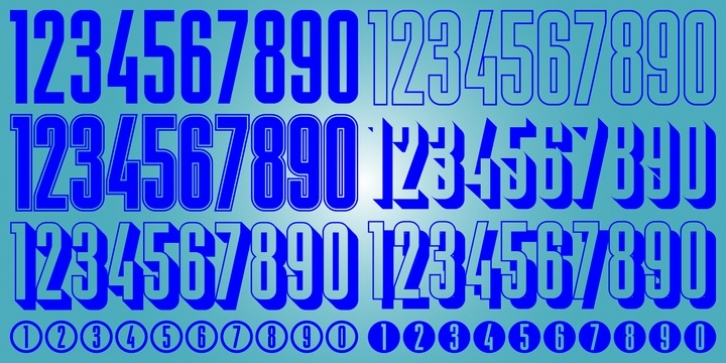
Display Digits Five is a display number font with eight sets of variations of the same digits. The digits 0 through 9, with period and comma in appropriate variations, are prepared as (1) solid, (2) outline, (3) solid with contour outline, (4) outline with 3-D shadow, (5) 3-D shadow only, (6) outline with drop shadow, (7) positive in circle, (8) negative in circle.